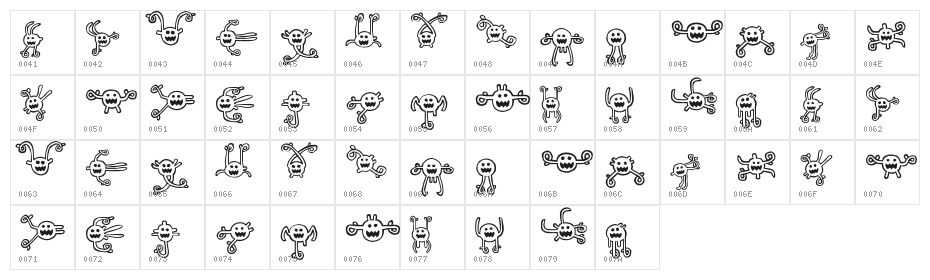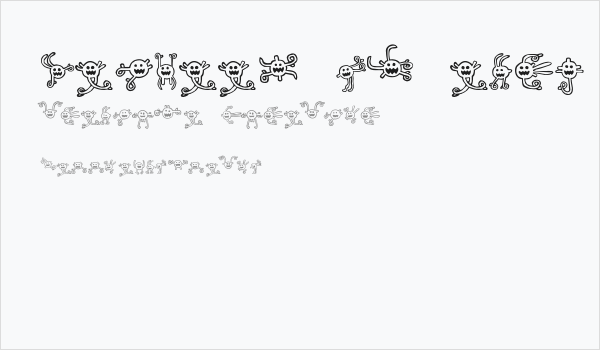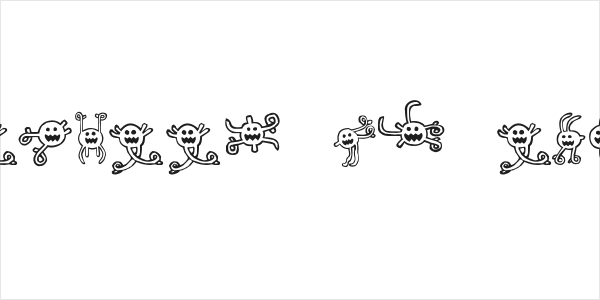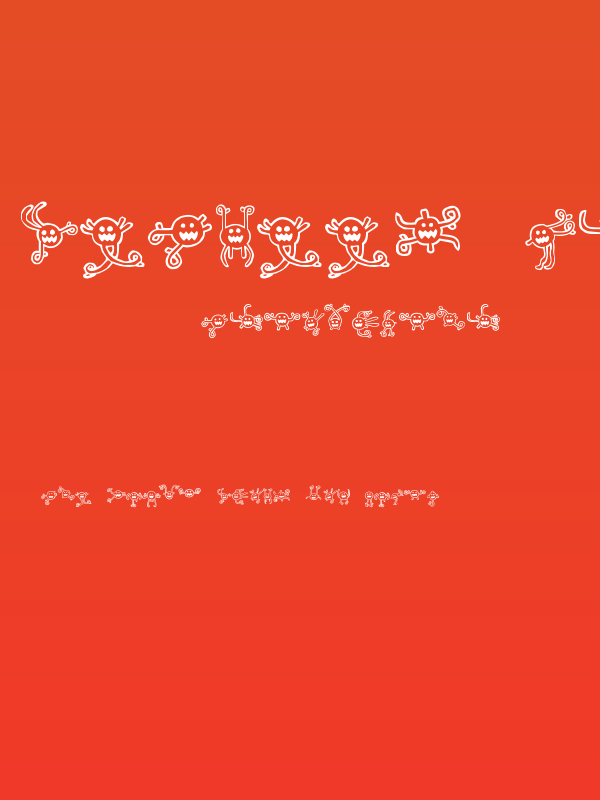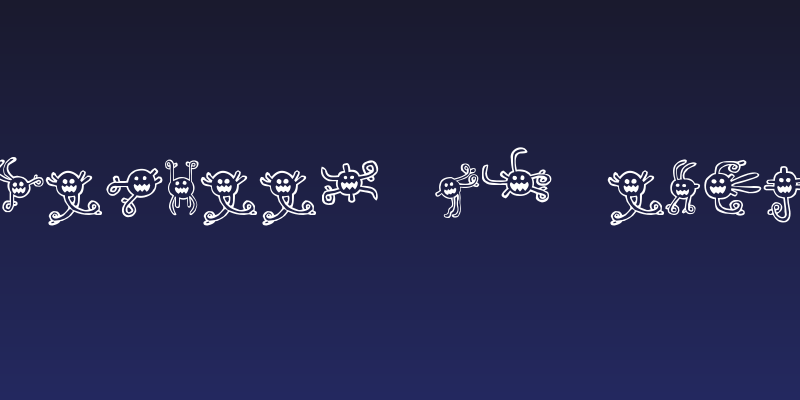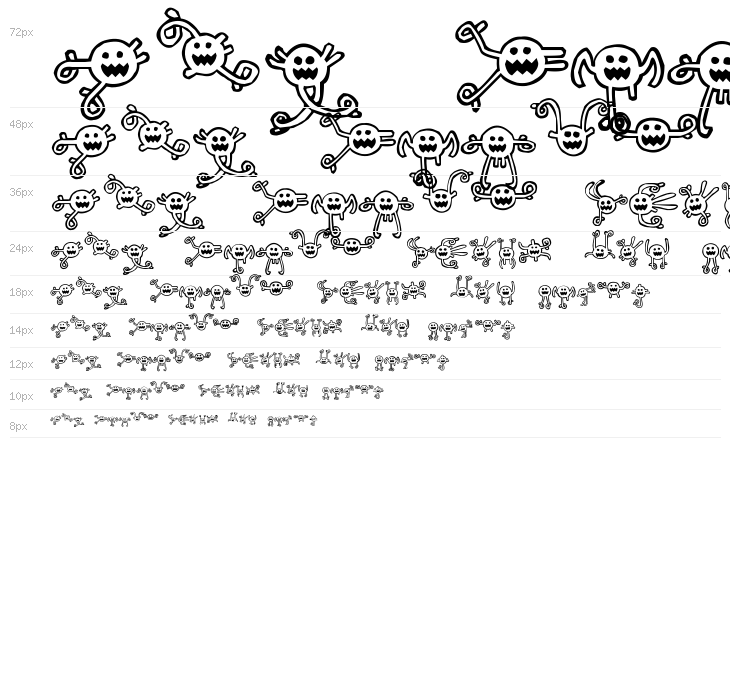
between my ears Font
| Caso d'uso | Logos, Posters, Illustrations |
| Progetti proposti | Ideal for children's book illustrations, playful posters, creative branding, and unique event invitations. |